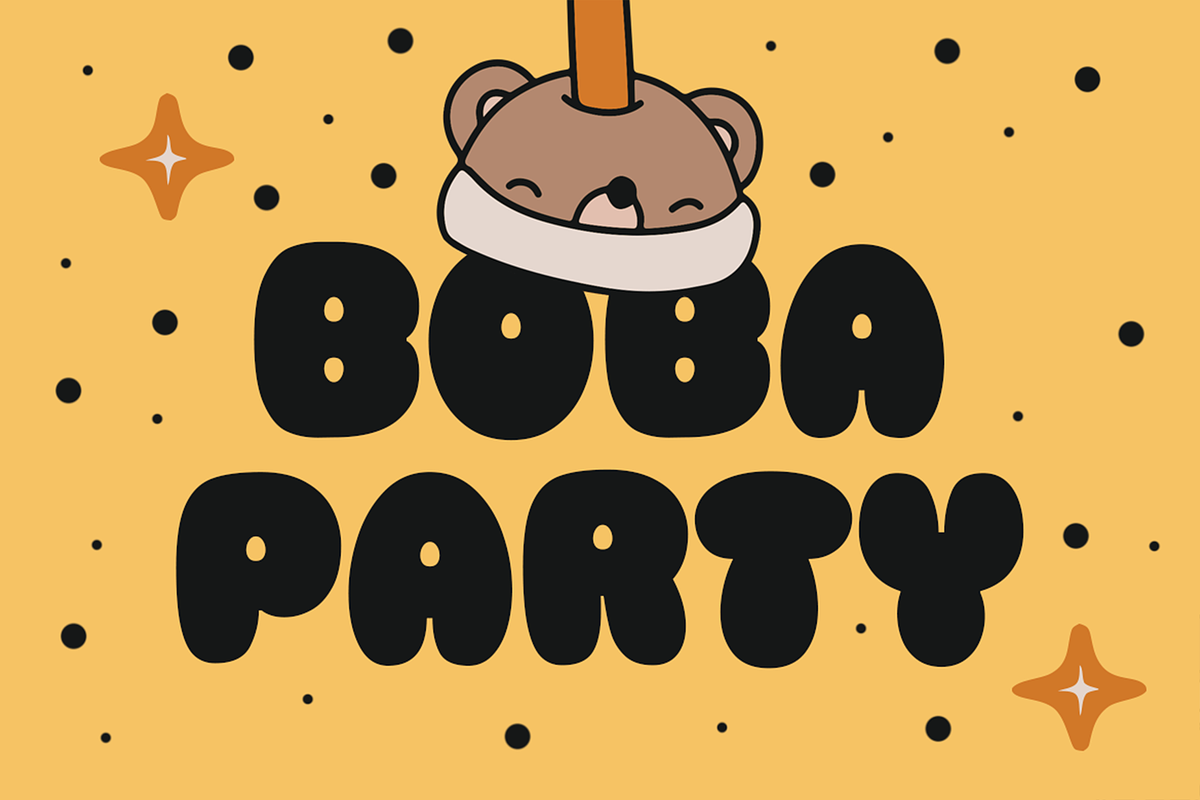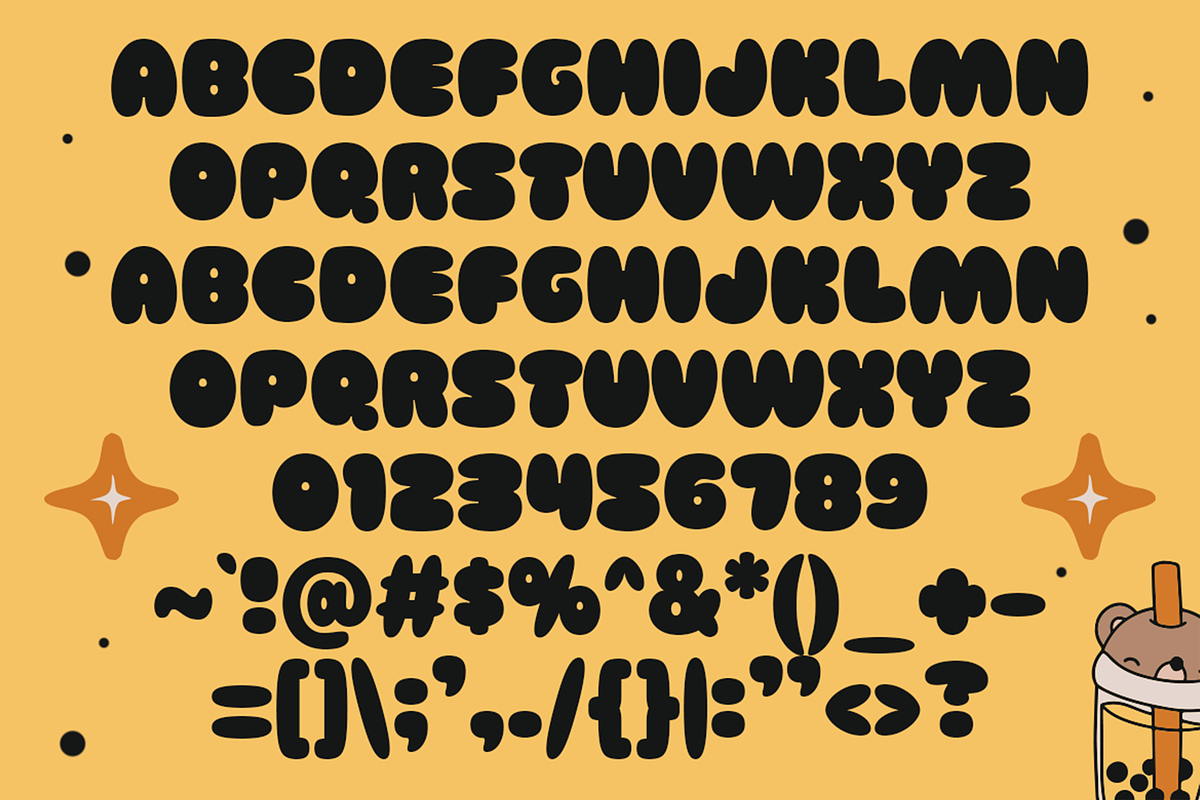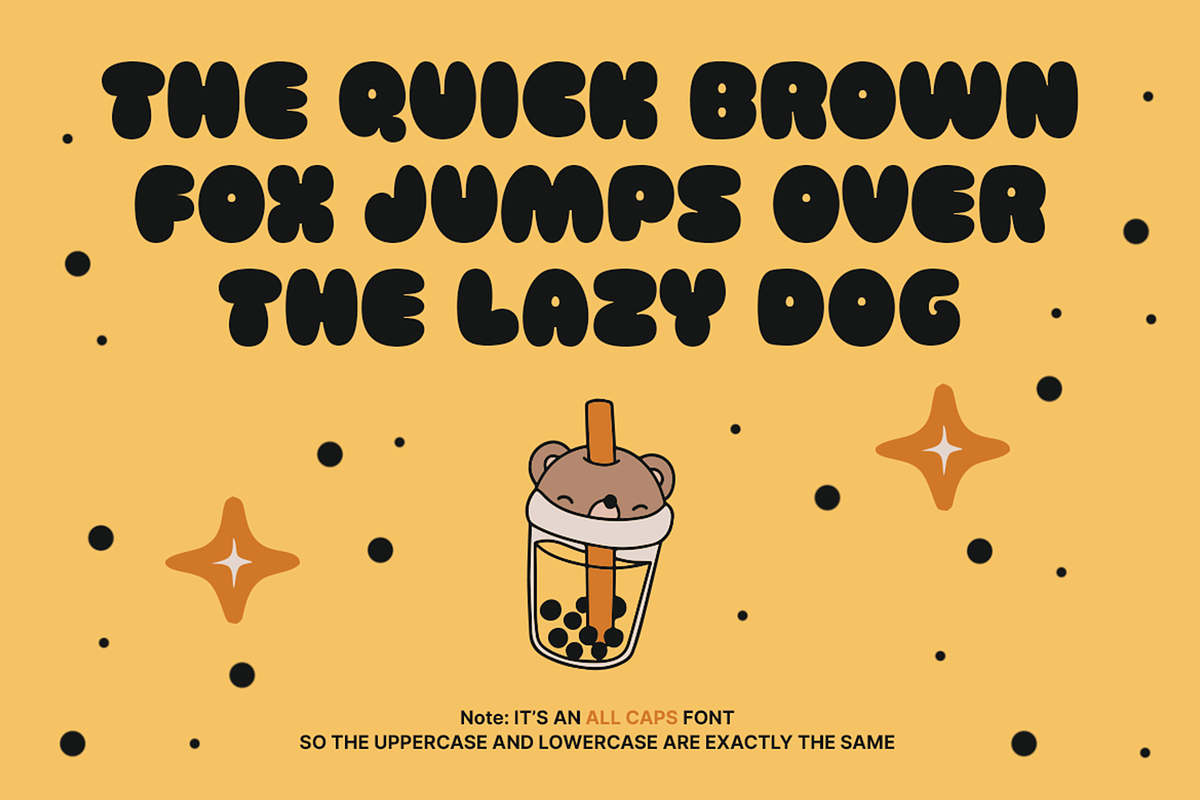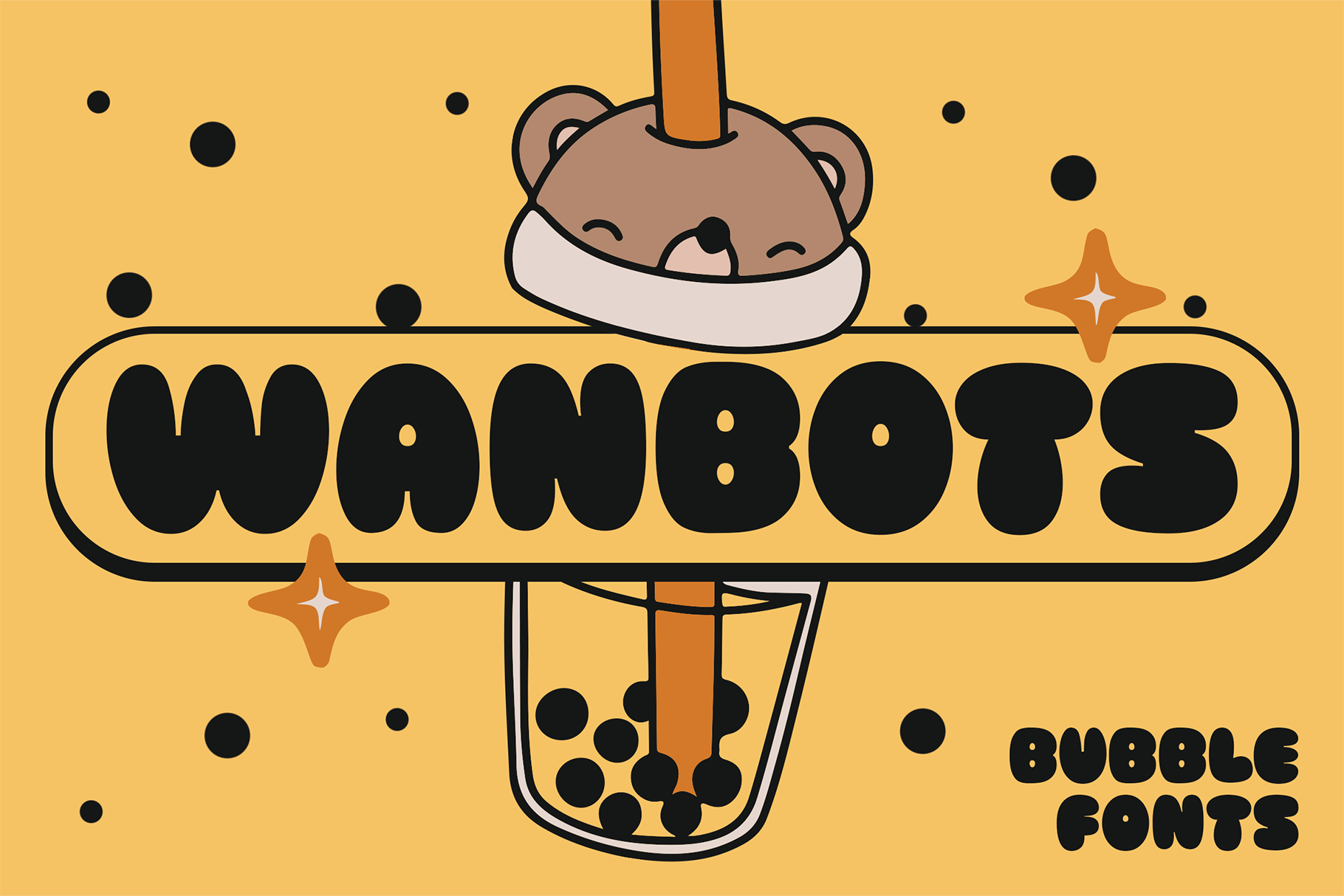
Wanbots - Bubble Fonts
Say hello to Wanbots, the bubbly font that brings smiles, sprinkles charm, and adds a delightful punch to every project! Inspired by the cheerful world of boba tea, cuddly characters, and cartoonish fun, Wanbots is a bold, rounded typeface that’s full of joy and perfect for anything that needs a sweet and playful touch.
Each character in Wanbots is crafted to feel like a soft bubble – making it ideal for kids' projects, branding, games, stickers, packaging, and fun merch! Whether you're designing a toy label or a café menu, Wanbots will make sure your message feels as huggable as it looks.
- Style: Bold • Bubble • Rounded
- Perfect for: Kids Branding, Toys, Food & Drink Packaging, Illustrations, Posters
- Bonus: Comes with a big bear hug of personality!
Get ready to pop your designs with Wanbots – the cutest font in the cup!